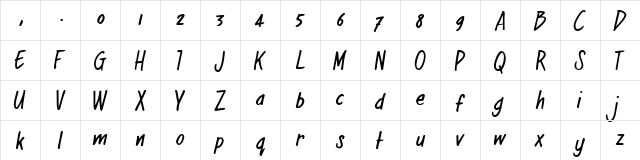
regularJoe Regular
Design Context for regularJoe Typeface
regularJoe takes a measured approach to typography — its balanced proportions and neutral character make it a reliable workhorse for both digital and print work.
Pro Tip: Use regularJoe in both headline and body roles to test its range before committing to a single application.